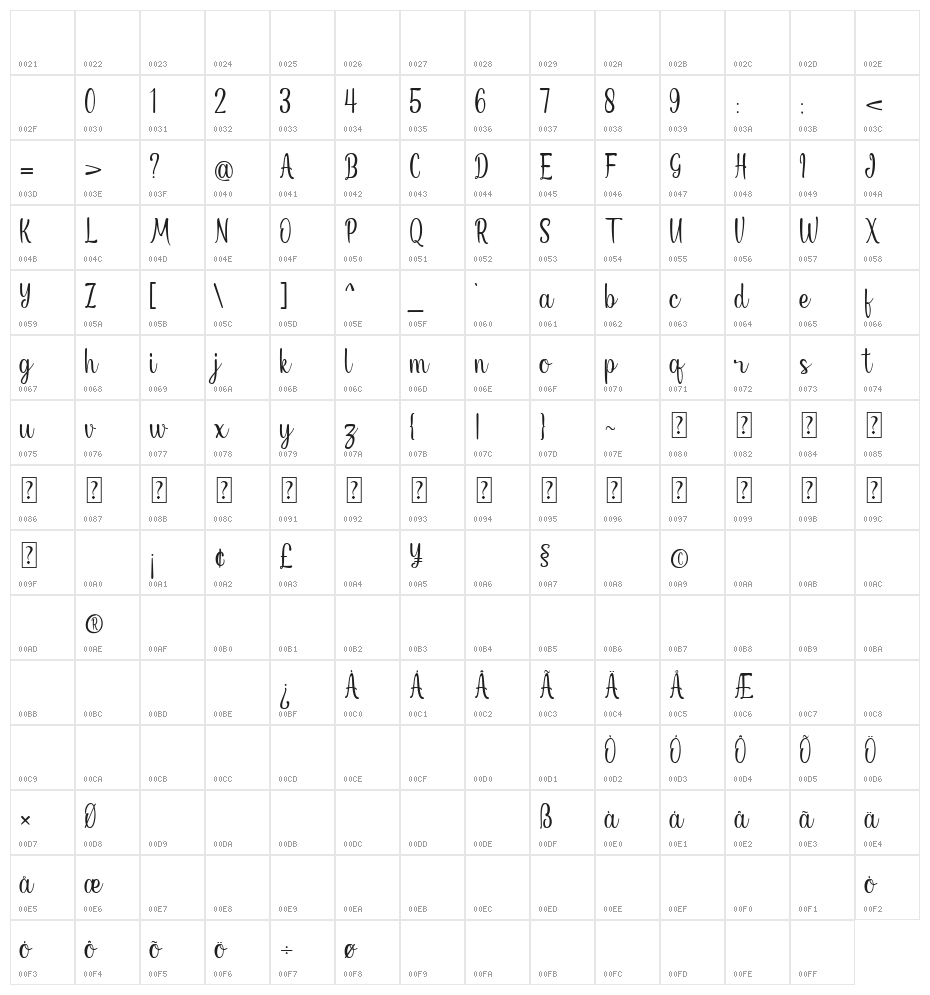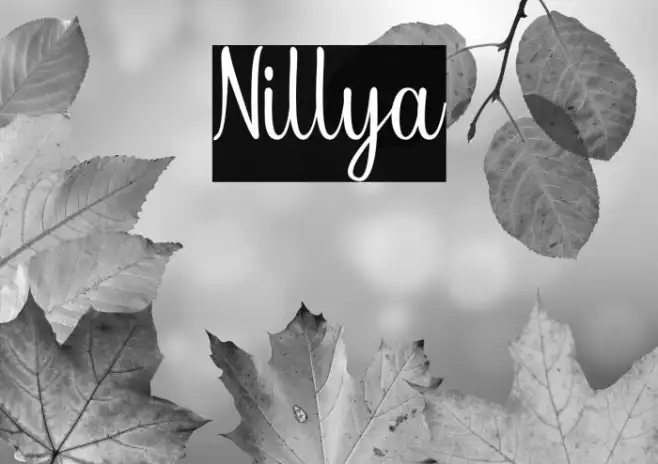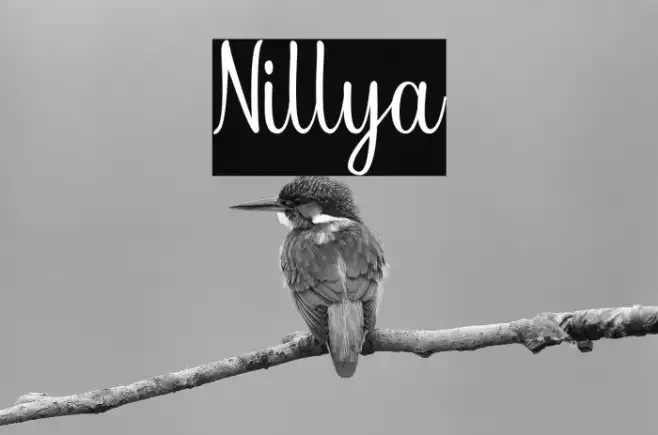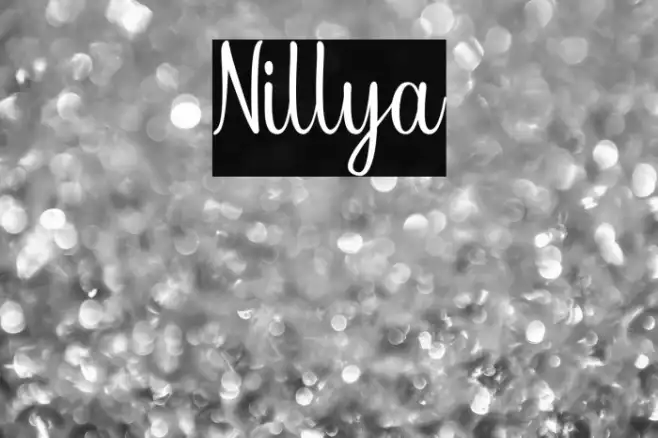
Nillya Font
Nillya Description
This font features a playful and elegant script style with a handwritten feel. The characters are fluid and connected, offering a sense of movement and grace. The uppercase letters are tall and slightly narrow, while the lowercase letters maintain a consistent flow with gentle curves and loops. The numerals are clear and easy to read, matching the overall style of the alphabet. This font includes a variety of special characters, enhancing its versatility for different design needs. The strokes are moderately thick, providing a balanced contrast that ensures readability while maintaining a decorative appearance.
| Use Case | Logos, Invitations, Social Media |
| Proposed Projects | Ideal for wedding invitations, greeting cards, branding projects, and social media graphics. |